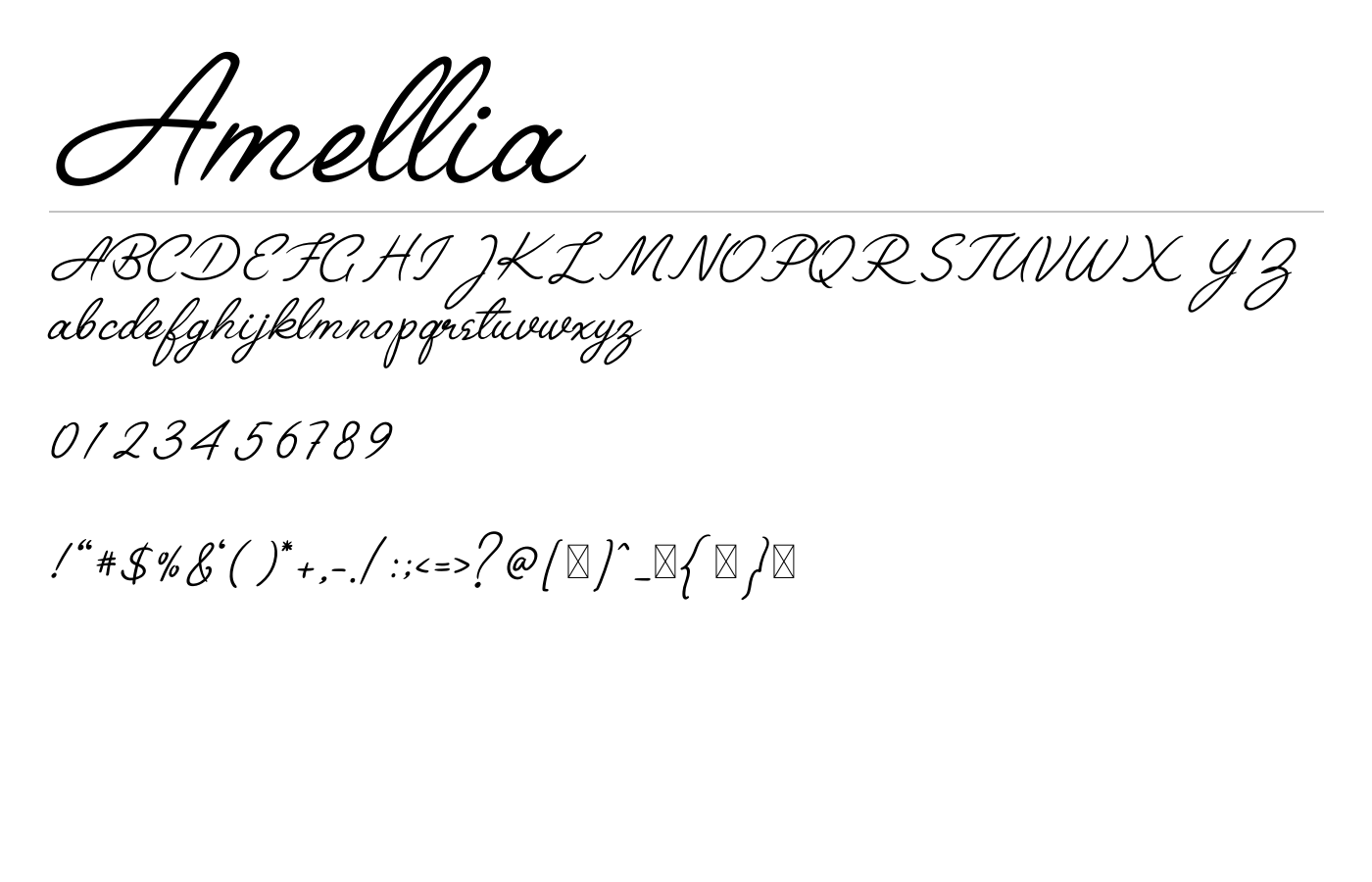
Amellia is a delicate, elegant script font that mimics smooth, flowing handwriting with its thin, graceful strokes and moderate contrast. Its airy, connected letterforms give it a refined, personal touch, making it ideal for invitations, branding, and stylish editorial projects that seek a sophisticated yet approachable feel. This font works best in designs that want to convey elegance, charm, and a handcrafted aesthetic.
Amellia Font